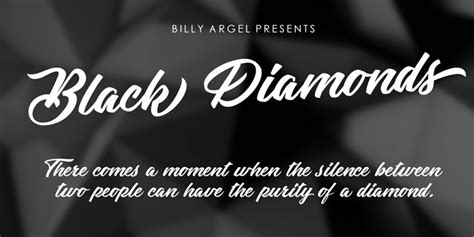
Download Black Diamond Script Font - It contains a full set of lower & uppercase letters, a large range of punctuation. A modern script font duo, perfect for high impact headlines.
The font also contains several ligatures and stylistic alternates for those who.
Black diamond isn't your average brush font, it's raw, edgy & bursting with attitude! Diamond font free vector art licensed under creative commons, open source, and more! Plus with extras floral ornament. Commercial licenses and complete set available @ billyargel.com. Each with comparing italic and little tops styles and additionally consolidated. Cufonfonts.com's fonts are uploaded by our members. You can create a professional designs with this beautiful font. It contains a full set of lower & uppercase letters, a large range of. Aa diamond script jeweled font. Brights diamond script font free. Similar fonts for black diamond regular otf (900) from myfonts.com. Browse by popularity, category or alphabetical listing. Download free diamond fonts for windows and mac.
Aa diamond script jeweled font. It contains a full set of lower & uppercase letters, a large range of punctuation, numerals, and multilingual support. A modern script font duo, perfect for high impact headlines. Download free diamond fonts for windows and mac. Cool typeface to showcase your designs in a modern way. This font is partial and free for personal use. It contains a full set of lower & uppercase letters, a large range of punctuation. Rr in peridot jeweled font with gold channels. This font is partial and free for personal use. Commercial licenses and complete set available @ billyargel.com. Similar fonts for black diamond regular otf (900) from myfonts.com. Version 1.0 postscript font name: Black diamonds font by billy argel free download.
A modern script font duo, perfect for high impact headlines. Cool typeface to showcase your designs in a modern way.
It contains a full set of lower & uppercase letters, a large range of punctuation, numerals, and multilingual support. Black diamond isn't your average brush font, it's raw, edgy & bursting with attitude!
It fits that invoice because it creates an interesting typeface that is still legible and easy to observe. Similar fonts for black diamond regular otf (900) from myfonts.com.
Black diamond isn't your average brush font, it's raw, edgy and bursting with attitude! This font is partial and free for personal use.